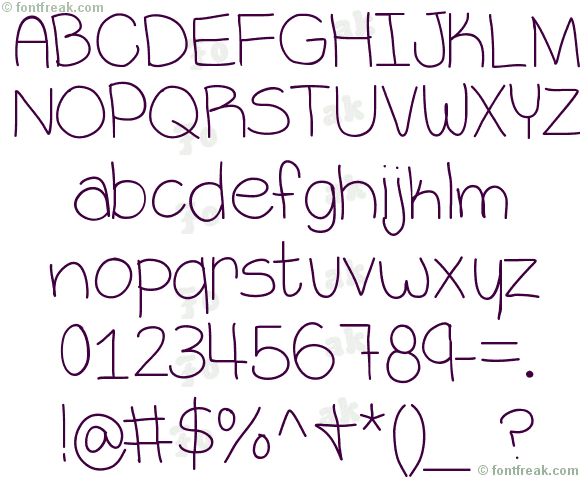
VaNess
About VaNess
The VaNess font, crafted by designer Vanessa Bays, is a captivating handwritten typeface that embodies both elegance and personality. This font falls under the script category, showcasing a unique blend of fluid strokes and artistic flair. The visual characteristics of VaNess are defined by its moderate stroke weight and subtle contrast, which create a harmonious balance between legibility and style. The letters feature a natural flow, with gentle curves and occasional flourishes that add to its charm, while the spacing is thoughtfully designed to maintain readability.
VaNess is exceptionally versatile, making it ideal for various creative applications. It is particularly well-suited for wedding invitations, where its romantic and whimsical touch can elevate the overall aesthetic. Additionally, the font works beautifully on greeting cards, allowing for heartfelt messages to resonate with recipients. Small business owners will find it perfect for branding materials, such as logos and packaging, as it conveys a friendly and approachable vibe. Furthermore, content creators can utilize VaNess for social media graphics, ensuring their posts stand out with a distinctive flair.
In a world where fonts often feel generic, VaNess stands out with its artistic elegance and adaptability. Whether you’re designing an invitation or crafting a brand identity, the VaNess font free download provides a refreshing option that captures attention and evokes emotion. With its distinct personality, this font is sure to leave a lasting impression.